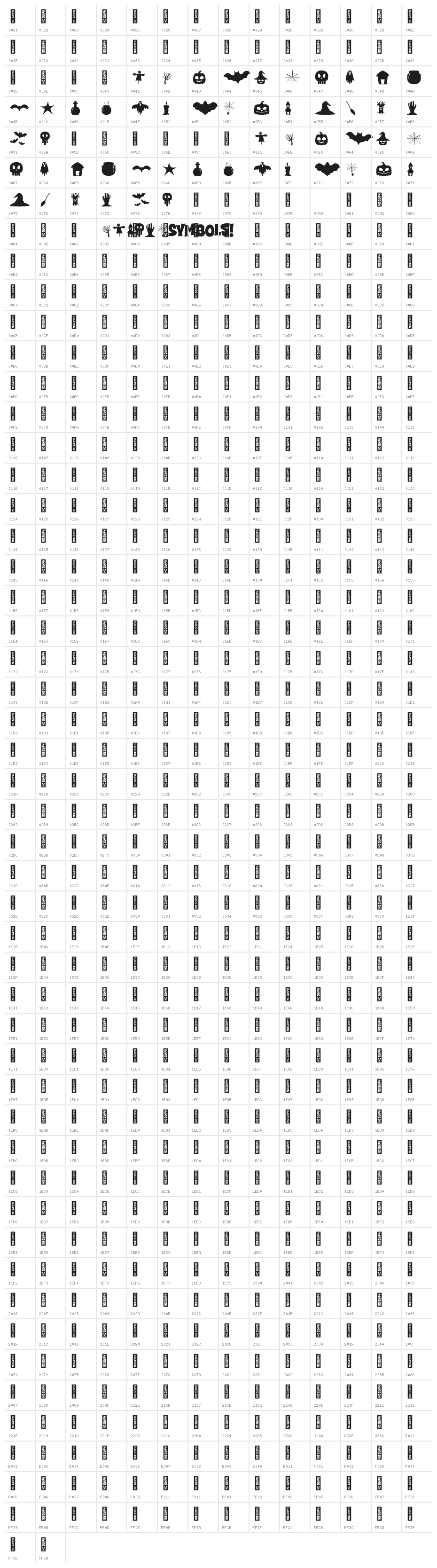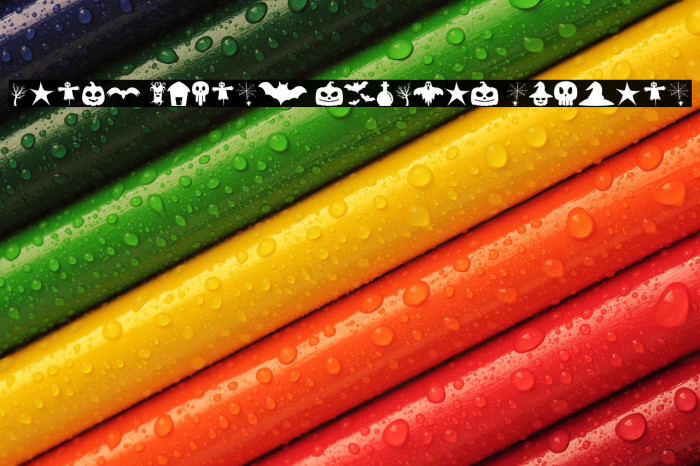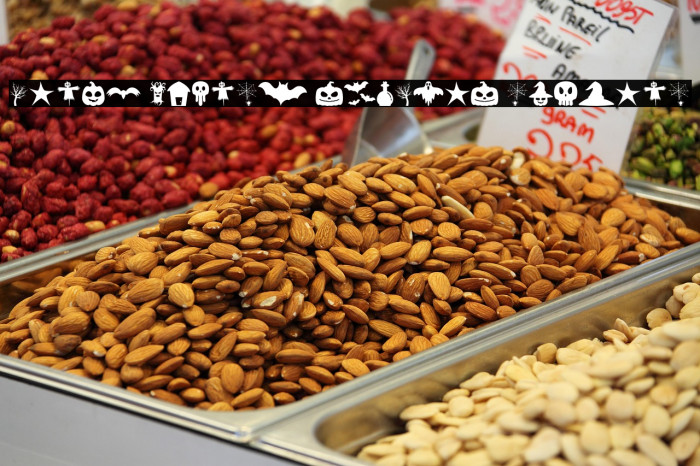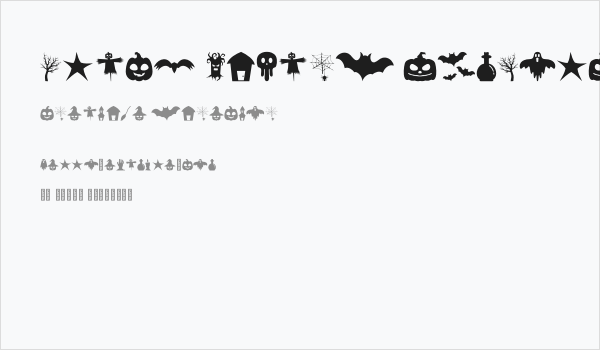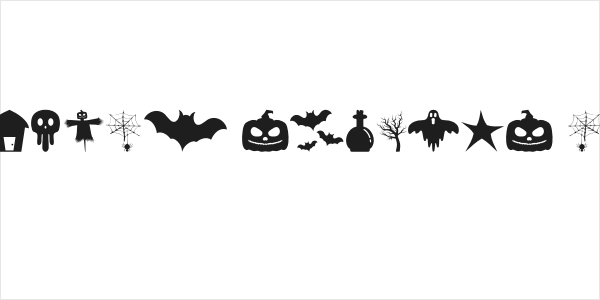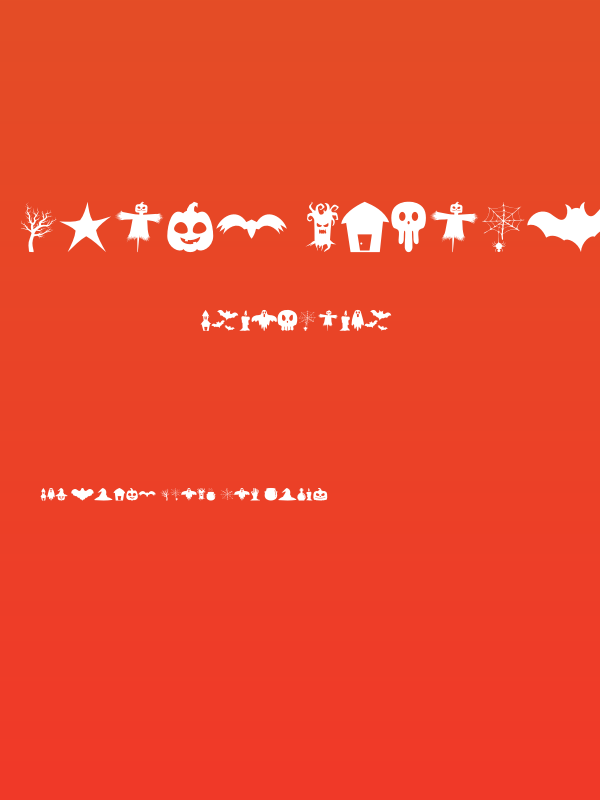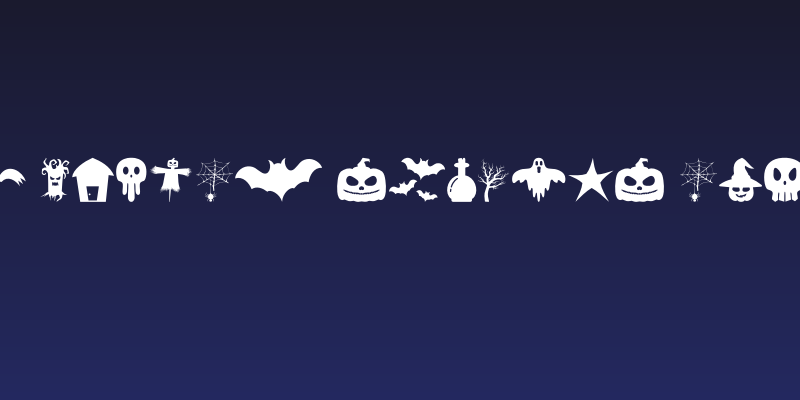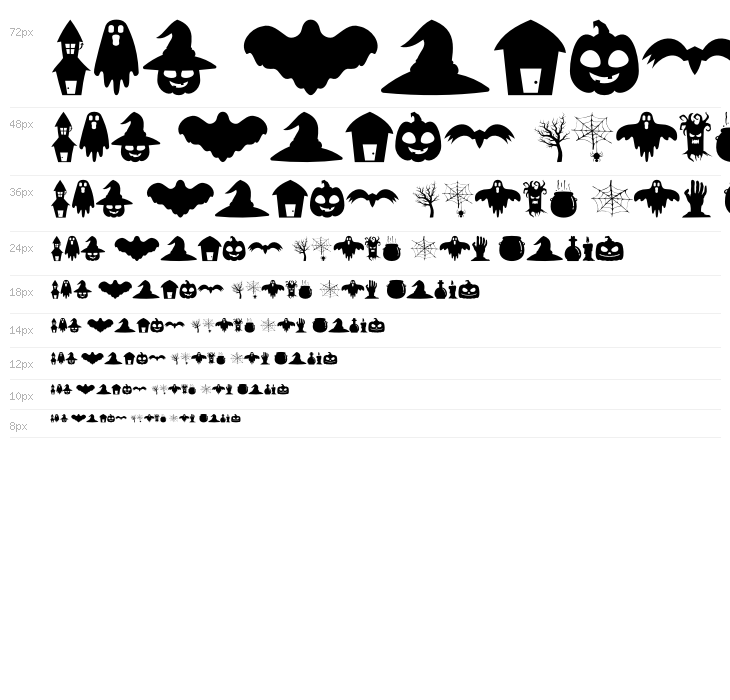
Black Wizard Symbols Regular Font
Black Wizard Symbols Regular Description
This font features a collection of Halloween-themed symbols, including bats, pumpkins, witches, skulls, ghosts, and other spooky elements. Each character is a bold, black silhouette, making them highly visible and perfect for decorative purposes. The symbols are designed with a playful yet eerie style, capturing the essence of Halloween festivities. The font does not include traditional alphanumeric characters, focusing solely on these thematic icons. The consistent use of solid black shapes ensures that each symbol stands out clearly against any background.
| Proposed Projects | Ideal for Halloween party invitations, themed posters, decorations, and event flyers. |